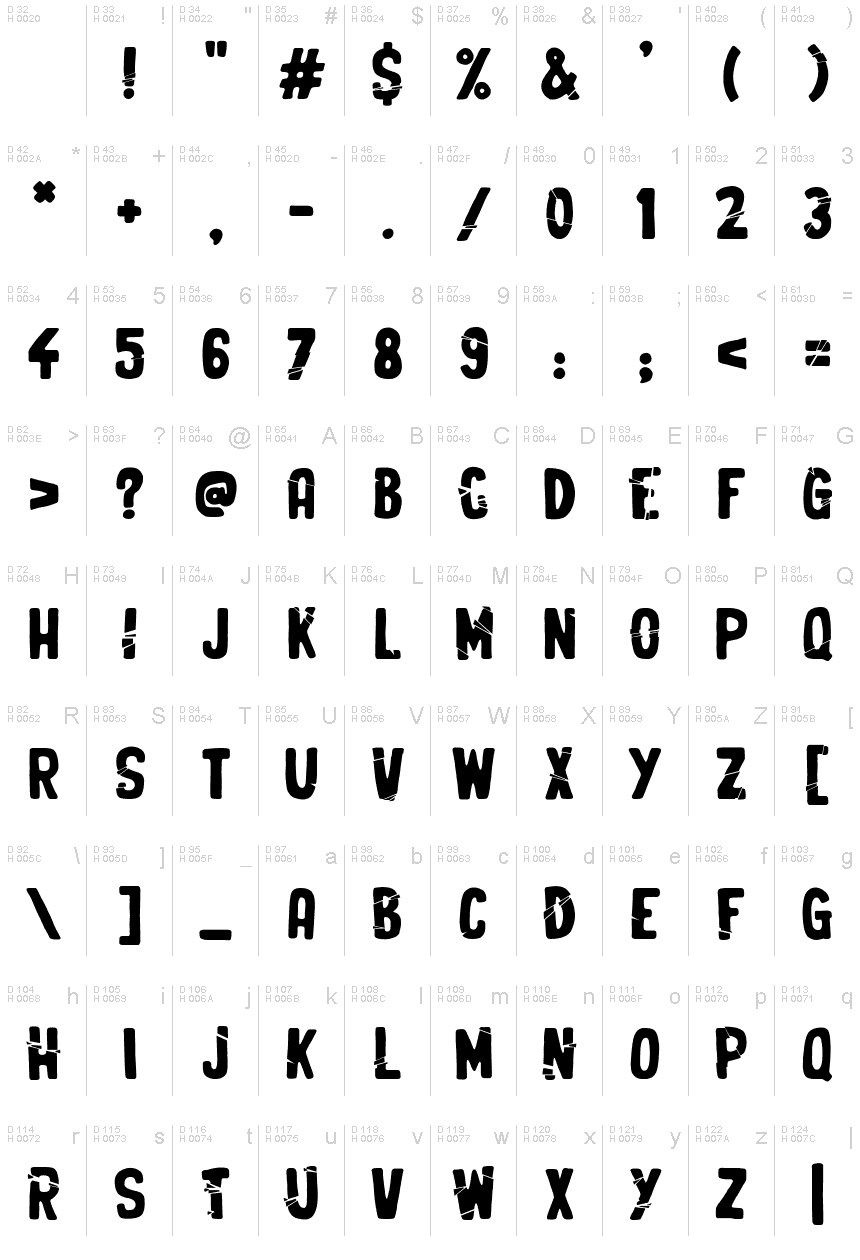
Crunchy Time
Crunchy Time is a playful and bold display font designed by imagex. The cartoon style of the typeface adds a fun and whimsical touch to any project, making it perfect for children's books, logos, advertisements, and packaging design. With a semi-condensed width and bold weight, Crunchy Time commands attention without sacrificing legibility. Use this versatile font to add a touch of playful energy to your designs. Whether you're looking to create something lighthearted or quirky, Crunchy Time is the perfect choice for bringing your ideas to life!